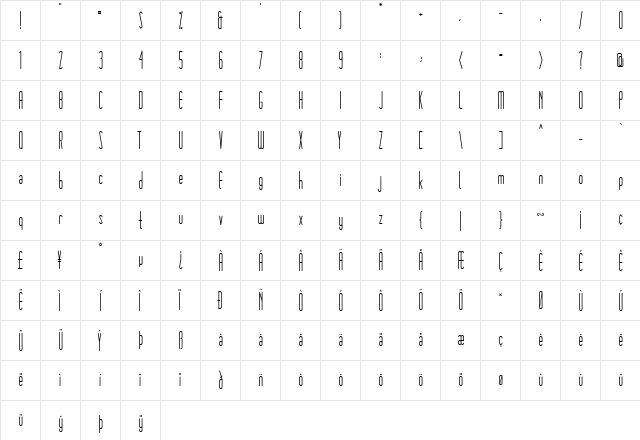
Matchbook Matchbook
| Foundry | One by Four |
| Designer | Brian Haines |
Design Context for Matchbook Typeface
Matchbook is a composed and adaptable typeface that performs quietly and consistently across a wide range of design contexts.